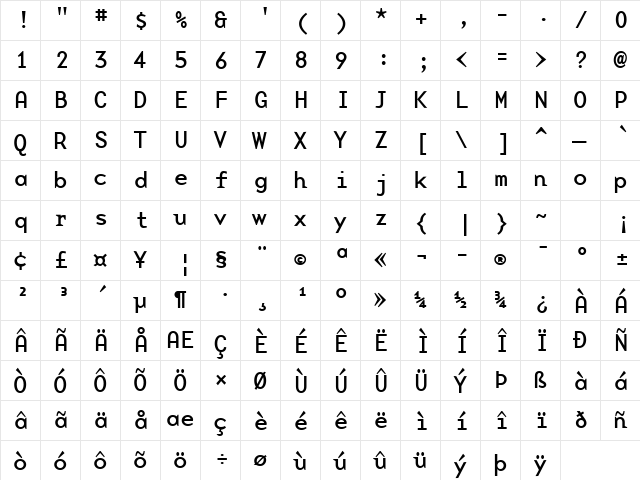
BaseMonoWideReg Regular
Design Context for BaseMonoWideReg Typeface
BaseMonoWideReg brings the precise, column-aligned rhythm of monospaced typography to designs that value technical clarity and systematic order.
Well-suited to data-driven dashboards, coding tutorials, and any design that wants to reference the world of programming.